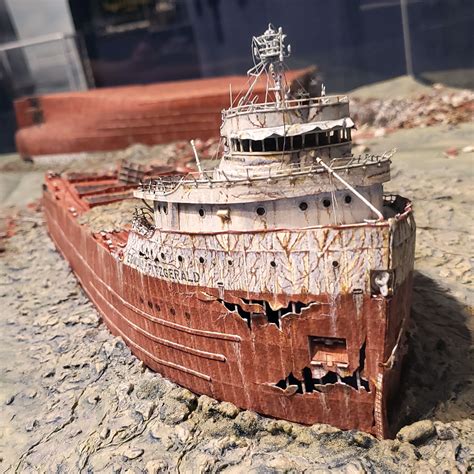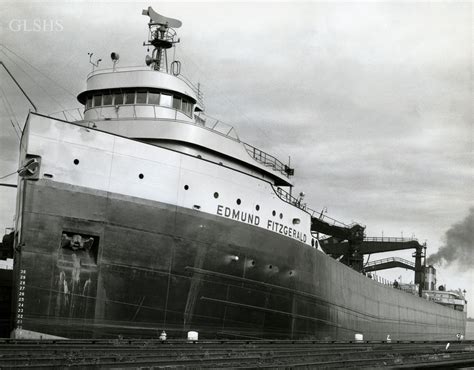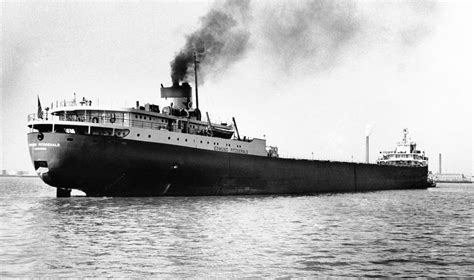
Typography plays a crucial role in design, setting the tone and enhancing the readability of any written content. Among the myriad of fonts available, the Edmund Fitzgerald Font stands out for its unique characteristics and historical significance. This font is named after the SS Edmund Fitzgerald, a Great Lakes freighter that tragically sank in 1975. The font captures the essence of maritime history and vintage aesthetics, making it a popular choice for designers looking to evoke a sense of nostalgia and adventure.
Understanding the Edmund Fitzgerald Font
The Edmund Fitzgerald Font is more than just a typeface; it is a tribute to a significant event in maritime history. The font's design elements often include nautical themes, such as anchors, waves, and ship silhouettes, which add a layer of depth and meaning to any project. Whether used in graphic design, branding, or web development, the Edmund Fitzgerald Font can transform a simple text into a visually compelling narrative.
Historical Context and Inspiration
The SS Edmund Fitzgerald was a massive freighter that operated on the Great Lakes. Its tragic sinking on November 10, 1975, inspired the famous song "The Wreck of the Edmund Fitzgerald" by Gordon Lightfoot. The font draws inspiration from this historical event, incorporating elements that pay homage to the ship and its crew. The design often features a rugged, weathered look, reminiscent of the harsh conditions of the Great Lakes.
Design Characteristics
The Edmund Fitzgerald Font is characterized by its bold, sturdy lines and vintage feel. Here are some key design elements that make this font unique:
- Bold and Sturdy Lines: The font's thick strokes give it a robust appearance, making it highly readable even at smaller sizes.
- Vintage Aesthetics: The design incorporates elements that evoke a sense of the past, such as distressed textures and retro color schemes.
- Nautical Themes: Anchors, waves, and ship silhouettes are common motifs, adding a maritime touch to the font.
- Versatility: Despite its specific theme, the Edmund Fitzgerald Font can be used in a variety of contexts, from maritime-themed projects to vintage-inspired designs.
Applications of the Edmund Fitzgerald Font
The Edmund Fitzgerald Font is versatile and can be used in various design projects. Here are some common applications:
- Graphic Design: Ideal for posters, flyers, and brochures, especially those with a nautical or vintage theme.
- Branding: Perfect for companies looking to convey a sense of history, adventure, or ruggedness.
- Web Development: Can be used in web design to create a unique and memorable user experience.
- Print Media: Suitable for book covers, magazine articles, and other print materials.
Comparing Edmund Fitzgerald Font with Other Vintage Fonts
While the Edmund Fitzgerald Font has its unique charm, it's essential to compare it with other vintage fonts to understand its strengths and weaknesses. Here is a comparison table:
| Font Name | Design Style | Best For | Unique Features |
|---|---|---|---|
| Edmund Fitzgerald Font | Bold, rugged, vintage | Maritime themes, adventure, history | Nautical motifs, weathered textures |
| Lobster Font | Playful, script | Casual, fun, handwritten | Cursive style, decorative elements |
| Pacifico Font | Script, casual | Informal, friendly, playful | Hand-drawn style, casual feel |
| Montserrat Font | Modern, geometric | Clean, modern, versatile | Geometric shapes, clean lines |
The Edmund Fitzgerald Font stands out for its bold, rugged design and nautical themes, making it a unique choice for projects that require a vintage or maritime aesthetic.
Incorporating Edmund Fitzgerald Font into Your Branding
If you're looking to incorporate the Edmund Fitzgerald Font into your branding, here are some tips to make the most of it:
- Consistency: Use the font consistently across all your branding materials to create a cohesive look.
- Complementary Colors: Pair the font with colors that complement its vintage feel, such as earthy tones or muted blues.